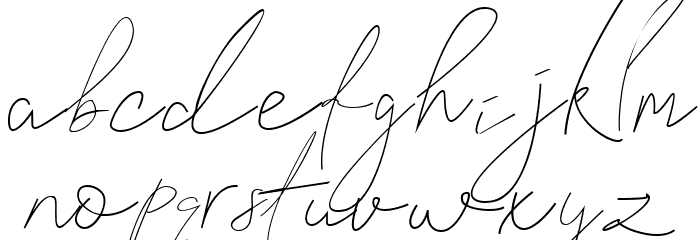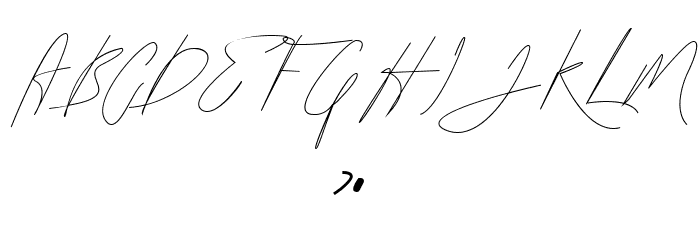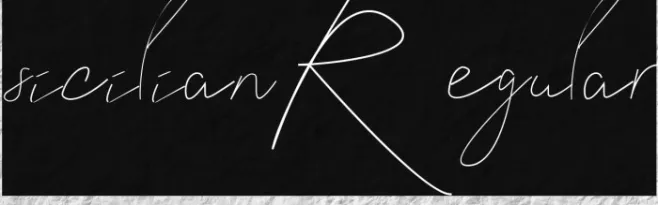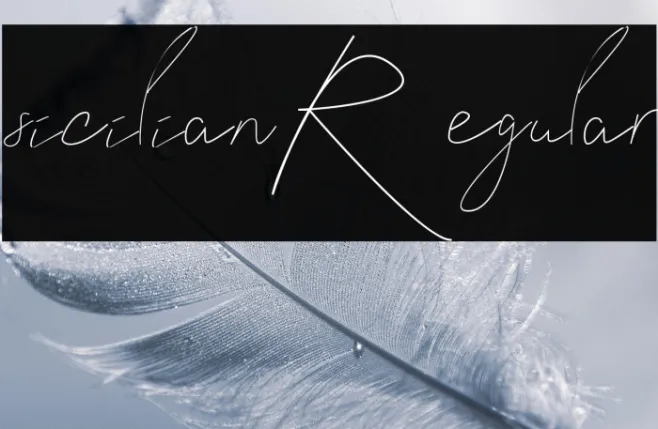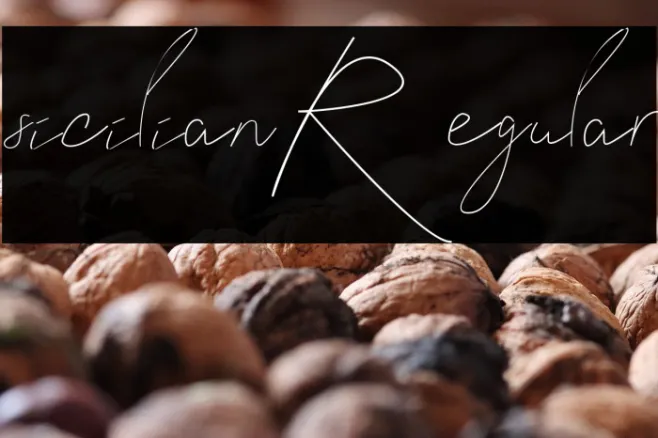
sicilianRegular Font
This font features a fluid, cursive style that mimics elegant handwriting. The letters are connected with sweeping, graceful strokes, creating a sense of motion and sophistication. The uppercase letters are slightly larger and more pronounced, while the lowercase letters maintain a consistent flow. The thin, delicate lines give it a refined and airy appearance, making it suitable for designs that require a touch of elegance and personal flair. The overall look is both modern and timeless, perfect for adding a personal touch to any project.
A fluid, cursive font with elegant, connected strokes.
- Proposed Projects: Ideal for wedding invitations, personal branding, greeting cards, and elegant packaging.
- Category: Script
- Weight: Light
- Character Spacing: Tight
- Overall Style: Elegant, Modern
- Use Case: Logos, Invitations, Personal Branding